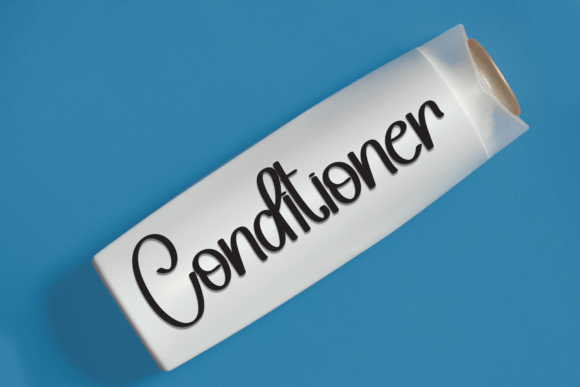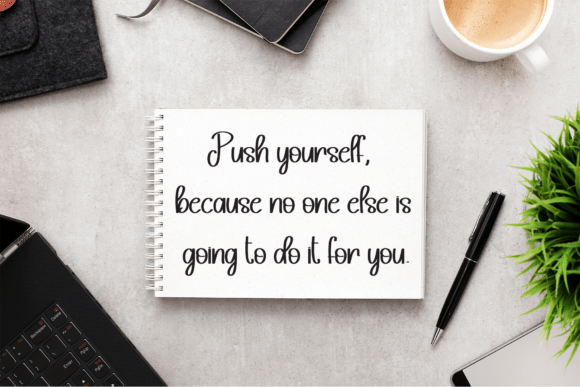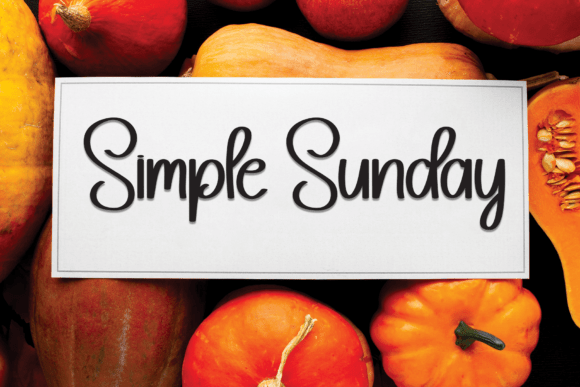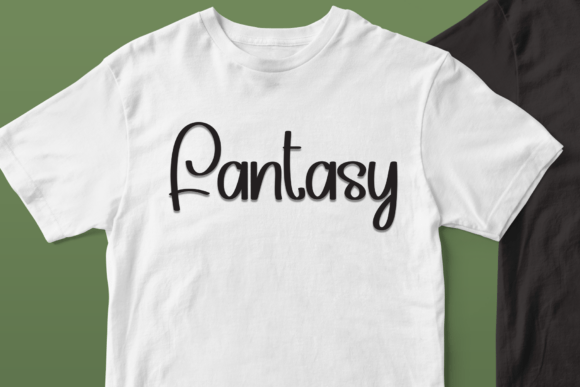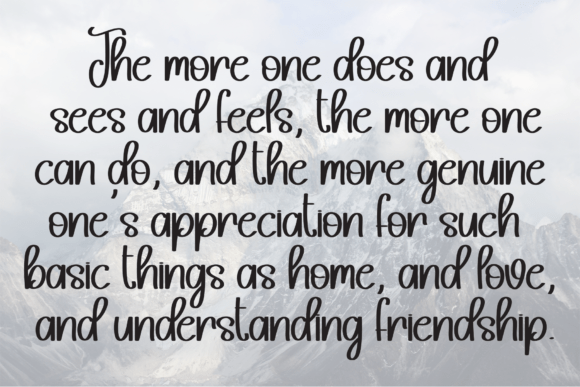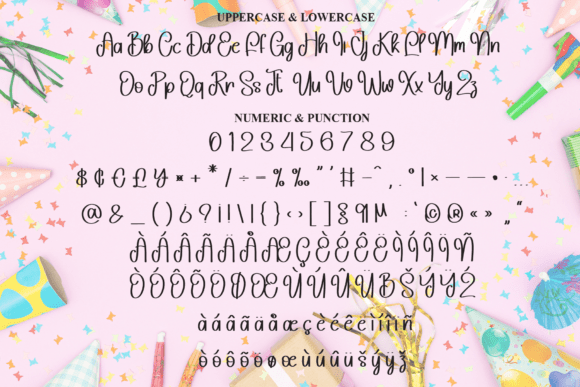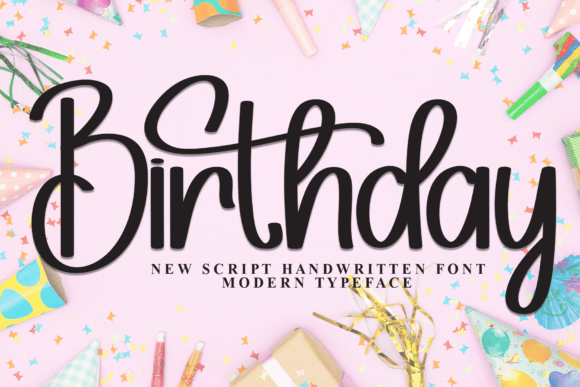
Introducing Birthday Font: The Perfect Choice for Fresh and Friendly Designs
Are you looking for a font that can add a touch of warmth and approachability to your designs? Look no further than Birthday Font, a casual and neat display font that radiates a fresh, friendly vibe. With its clean lines and relaxed structure, this font is perfect for a variety of design projects, from packaging and posters to social media graphics and more.
What Makes Birthday Font So Special?
Birthday Font is designed to be both charming and clear, making it an excellent choice for designers and crafters who want to add a personal touch to their work. The font’s approachable design ensures that it can be used in a variety of contexts, from formal to informal, without losing its polish. Whether you’re creating a brand identity, designing a poster, or crafting a social media graphic, Birthday Font is the perfect choice.
- Clean Lines: Birthday Font features clean lines that give it a crisp, modern look. This makes it perfect for designs that require a bit of sophistication and elegance.
- Relaxed Structure: The font’s relaxed structure gives it a friendly, approachable feel that’s perfect for designs that need to be warm and inviting.
- Polished Appearance: Despite its casual nature, Birthday Font maintains a polished appearance that’s perfect for professional designs.
- Versatility: This font can be used in a variety of design projects, from packaging and posters to social media graphics and more.
Why Choose Birthday Font for Your Designs?
There are many reasons why Birthday Font is an excellent choice for designers and crafters. Here are just a few:
- Easy to Read: The font’s clean lines and relaxed structure make it easy to read, even at small sizes.
- Highly Versatile: Birthday Font can be used in a variety of design projects, making it a great addition to any designer’s toolkit.
- Unique Style: The font’s unique style sets it apart from other fonts, making it perfect for designers who want to add a personal touch to their work.
- Time-Saving: With Birthday Font, you can create professional-looking designs in no time, saving you time and effort.
How to Use Birthday Font in Your Designs
Using Birthday Font in your designs is easy. Here are a few tips to get you started:
- Pair it with Other Fonts: Birthday Font pairs well with other fonts, making it easy to create unique and interesting combinations.
- Experiment with Colors: The font’s clean lines and relaxed structure make it perfect for use with a variety of colors and textures.
- Use it for Headings: Birthday Font is perfect for use in headings and titles, where its unique style can really shine.
- Try it in Different Sizes: The font’s versatility means that it can be used at a variety of sizes, from small to large.
Birthday Font is a fresh and friendly display font that’s perfect for designers and crafters who want to add a personal touch to their work. With its clean lines, relaxed structure, and polished appearance, this font is sure to become a staple in any designer’s toolkit. Whether you’re creating packaging, posters, social media graphics, or more, Birthday Font is the perfect choice.
Get Ready to Elevate Your Designs with Birthday Font